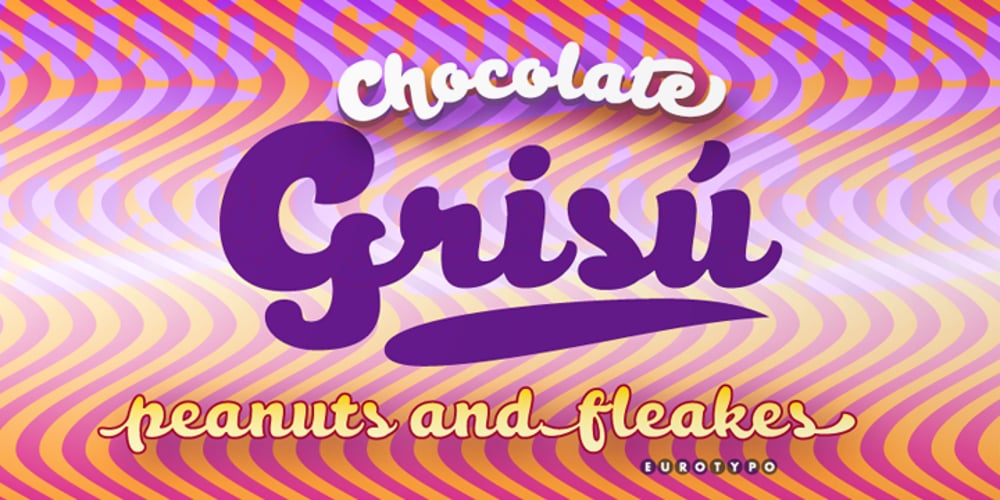
Berta
Berta font
Berta Font Family was designed by Olcar Alcaide and published by Eurotypo. Berta contains 1 styles and family package options. This font is versatile and expressive, it can create appealing atmosphere and attract attention, conveying a gamut of message and emotions. It is well suited in the jobbing areas like packaging, logotypes, magazines, web pages and advertising, etc. Berta has all the advantages of OpenType features that allow a variety of combinations: You may choose to set types in connected or unconnected ways, being used as body text or headlines for its good legibility, visual impact and accurate kerning. It has swashes, standard and discretional ligatures, contextual alternates, word ending and tails. It has also an extended character set to support Central and Eastern European as well as Western European languages.